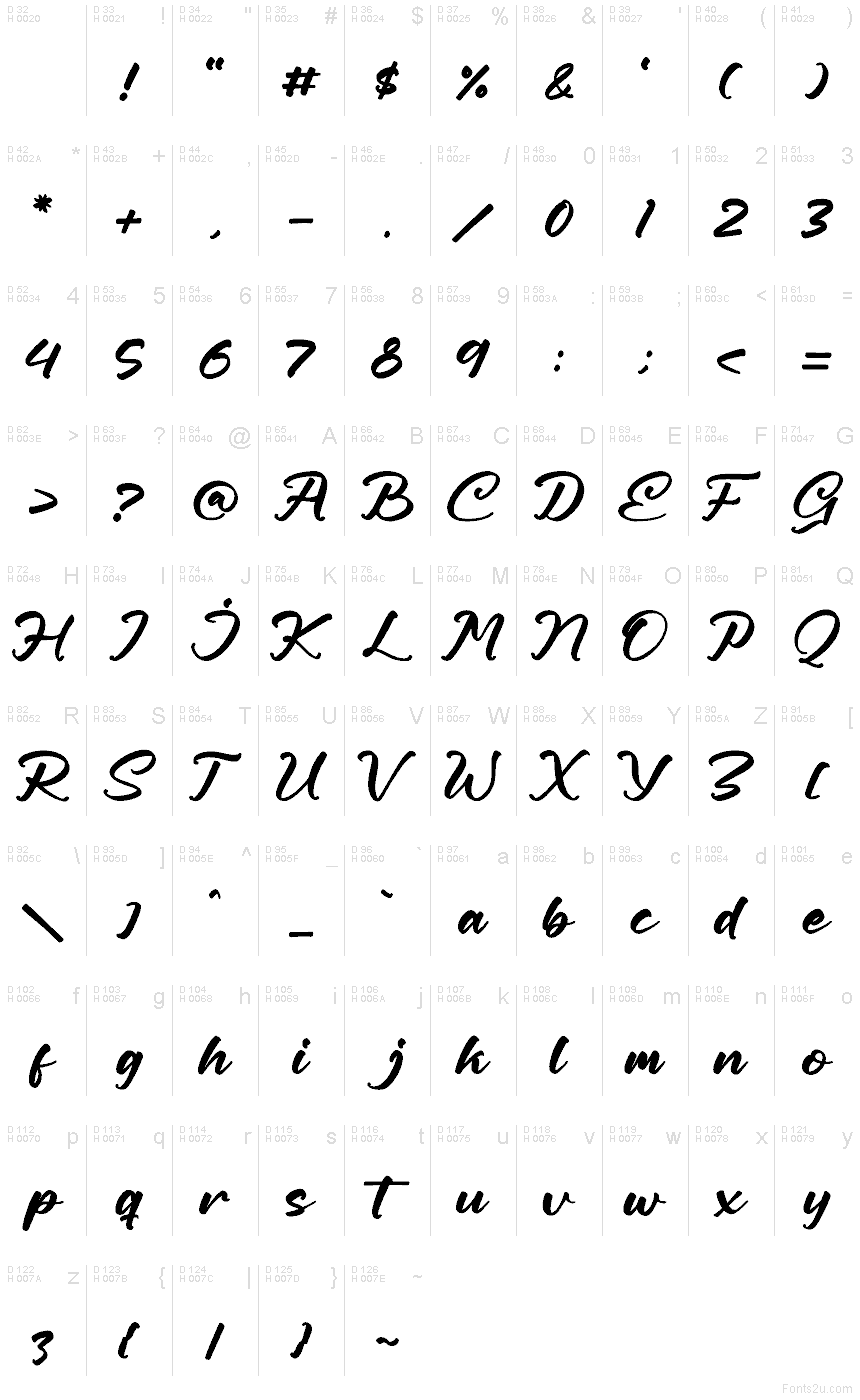
Callisya Novelyn
Callisya Novelyn font from Integritype Studio is an elegant and graceful free handwritten font with a touch of vintage flair. Its flowing letters bring a unique movement to the typeface, one that perfectly captures artistic expression. This authentic style gives it scripted elegance which looks professional even enough for commercial use.
Your multipurpose projects can never go wrong with this selection. Introduce Callisya Novelyn to your branding and writing designs, business cards, headlines, advertisements, magazines and newspaper articles, labels, social media posts with vivid captions or quotes, greeting cards for special occasions as well as postcards or invitations.